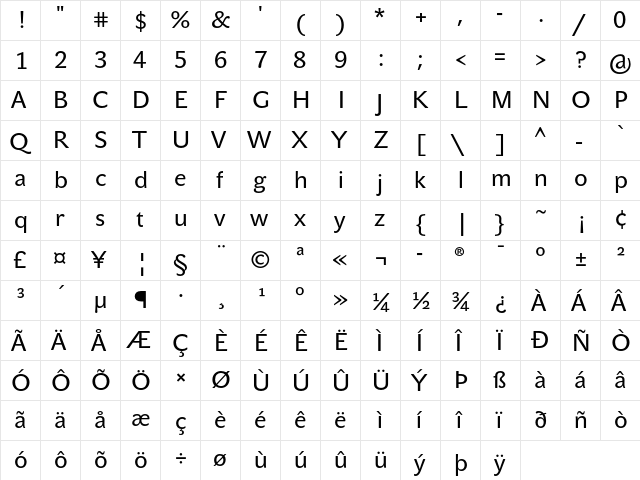
JohnSans Text Pro Regular
Design Context for JohnSans Text Pro Typeface
JohnSans Text Pro offers clean, dependable letterforms without strong stylistic allegiance, making it a practical choice for designers who need flexibility.
Pro Tip: Use JohnSans Text Pro in both headline and body roles to test its range before committing to a single application.